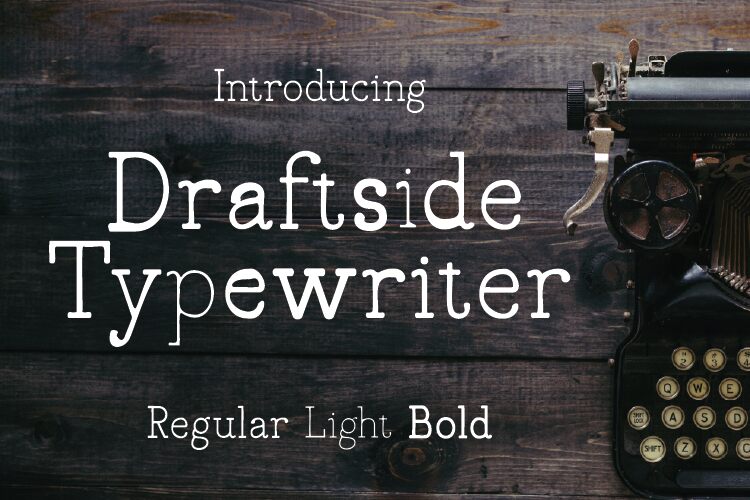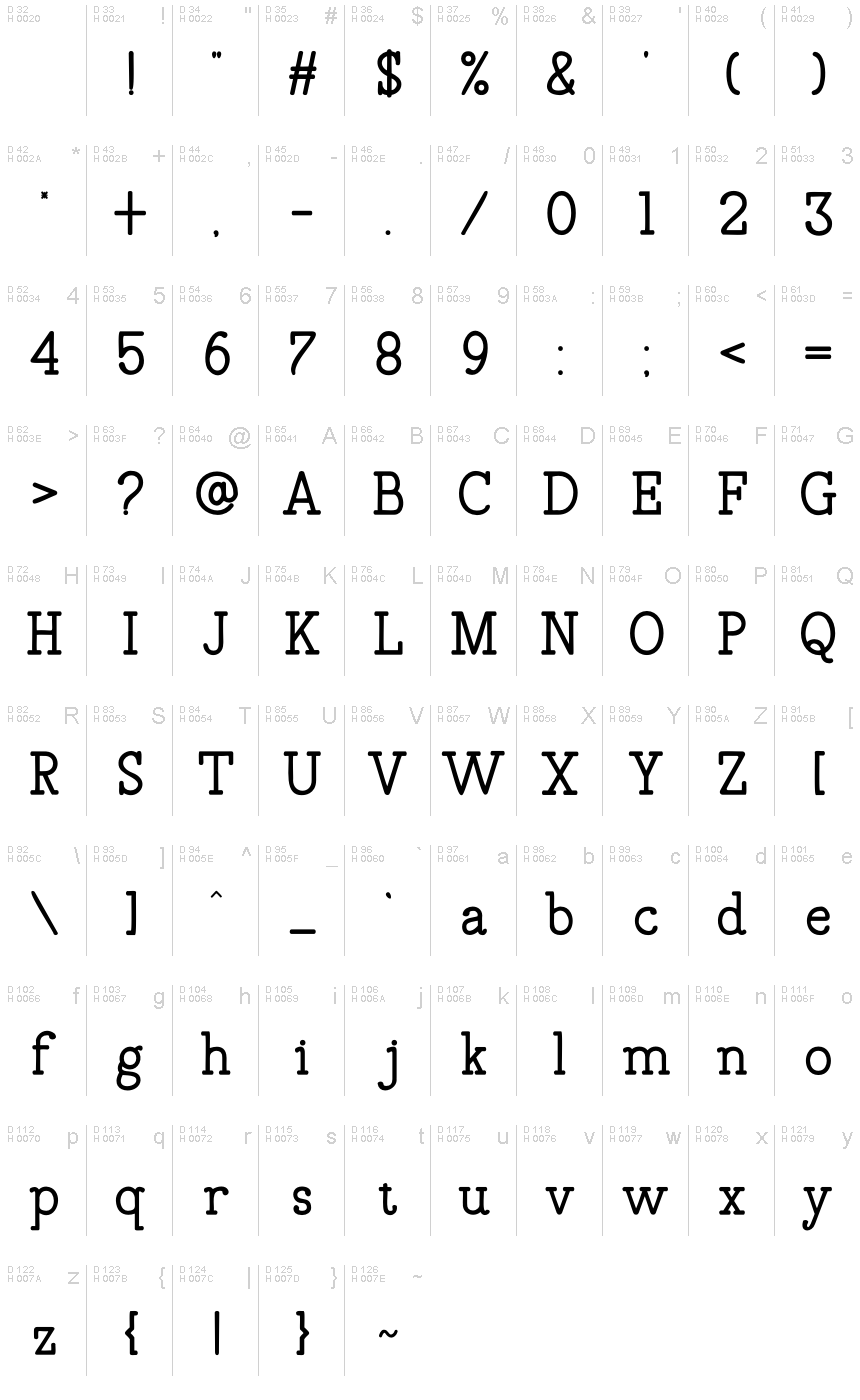
Draftside Bold
Draftside Bold, a captivating typeface from the Draftside font family, crafted by the talented designer Rvandtype, exudes a bold, typewriter-inspired aesthetic. This striking display font showcases a unique blend of sharp edges, clean lines, and a monospaced character design, creating a distinct, attention-grabbing visual presence. The Draftside Bold typeface effortlessly evokes a sense of industrial chic and retro-inspired charm, making it a versatile choice for a wide range of design applications.
Draftside Bold's typewriter-influenced style lends itself seamlessly to projects that require a bold, impactful typographic presence, such as headlines, posters, branding, and editorial design. Its strong, distinctive character further enhances its suitability for creating visually-striking packaging, product labeling, and promotional materials that demand a memorable, stand-out aesthetic.